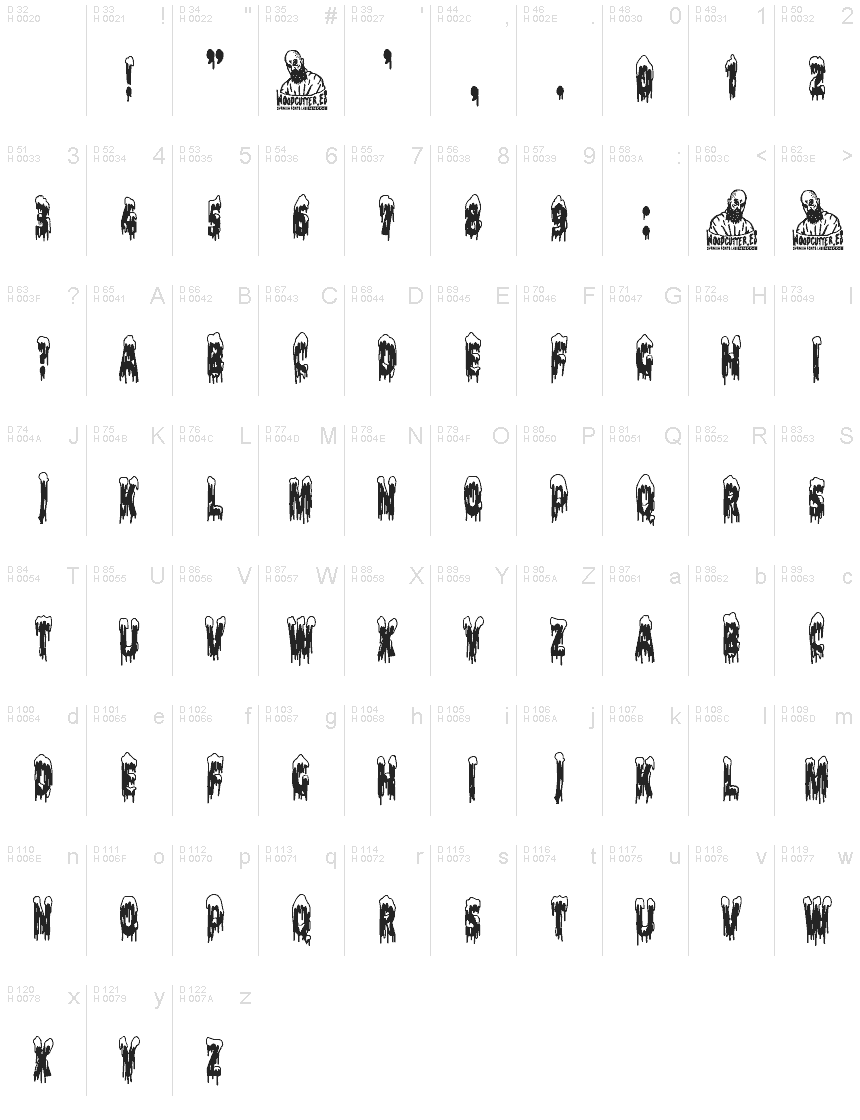
The Snow Nightmare
Presenting The Snow Nightmare, a bold and playful display typeface by Woodcutter. This free font carries strong thematic associations and a daring aura, with its letters exhibiting icicle-inspired effects.
It’s perfect for horror projects as well as poster and flyer design, so why don’t you check it out and make good use of this fun font today!